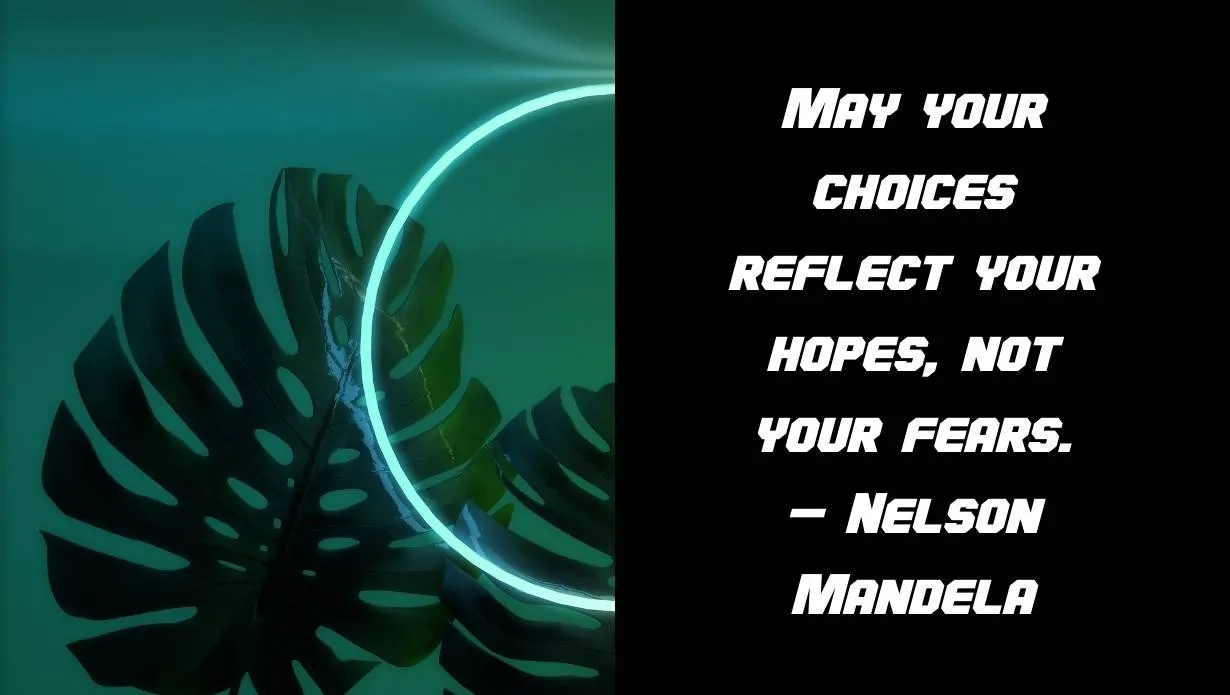
Here we present an elegant typeface that is known by the name Nascar Font. This typeface belongs to the Sans-Serif Font Family. In the year 1970, this cute font was designed by two famous and elegant designers known as Mr. Ronne Bonder, and the other is Mr. Tom Camase. It was designed on the base of an auto racing company in the State of America.
This awesome typeface comes in two popular styles. These styles are Bold and regular which makes them powerful and best for different designs.
Nascar Font Family
This classic font is similar and looks like to ITC Machine Font. Its Bold style is best for a lot of interesting designs. You will use Acme Font which is closest to this typeface and put it in your plans.